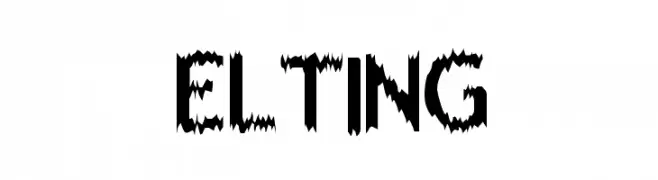
( DaShiz )
A clean, legible handwriting-style font ideal for educational use.
( Darrell Flood - hawtpixel.com )
A playful, handwritten-style font with bold, irregular strokes.
( Font Environment - www.fontenvironment.com/ )
A calligraphic mirror writing font with elegant curves and historical charm.
( Font Environment - www.fontenvironment.com/ )
A bold, calligraphic font with a mirror-writing style and artistic flair.
( Fonts A Go-Go - www.postmodernvillage.com/fonts.html )
A casual, handwritten font with an authentic, personal touch.
( Foopy - www.foopy.com/ )
A bold, melting-effect outline font with jagged edges.
( Foopy - www.foopy.com/ )
A decorative font with a melting, dripping effect ideal for dramatic themes.
( GeelynEdits - plus.google.com/u/0/108461348931992643310/ )
A playful, handwritten font with a textured and organic appearance.
( Ian Howe )
A casual, handwritten font with fluid strokes and a personal touch.
( KlaineBlaine - www.themoriarty-party.tumblr.com )
A casual, handwritten-style font with smooth, rounded strokes.